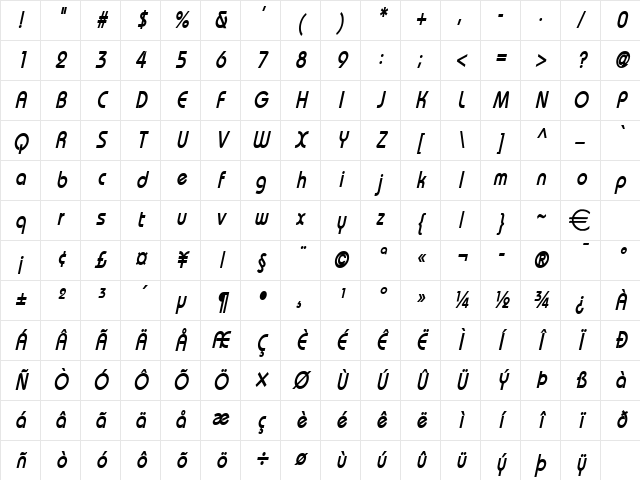
Complete BiminiCondensed BoldItalic glyph index. Displaying only characters natively supported by BiminiCondensed BoldItalic font.
BiminiCondensed is a composed and adaptable typeface that performs quietly and consistently across a wide range of design contexts. The slanted form adds forward momentum and visual energy. Its bold stroke weight gives it real presence on the page. Its narrow stance lets it pack a punch even in space-constrained designs.
Pro Tip: Use BiminiCondensed for emphasis, pull quotes, and subheadings where its slanted energy can add rhythm to the layout.